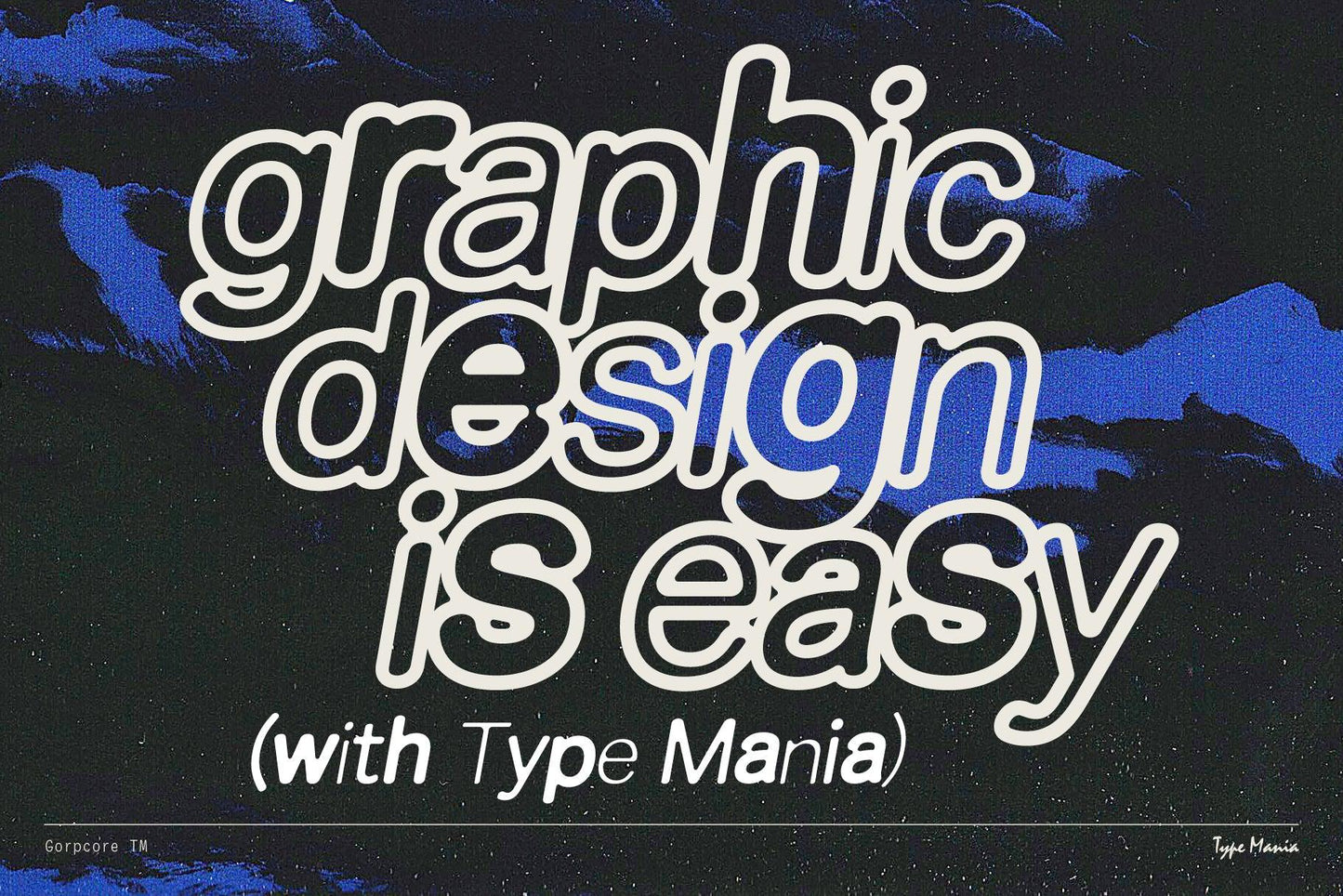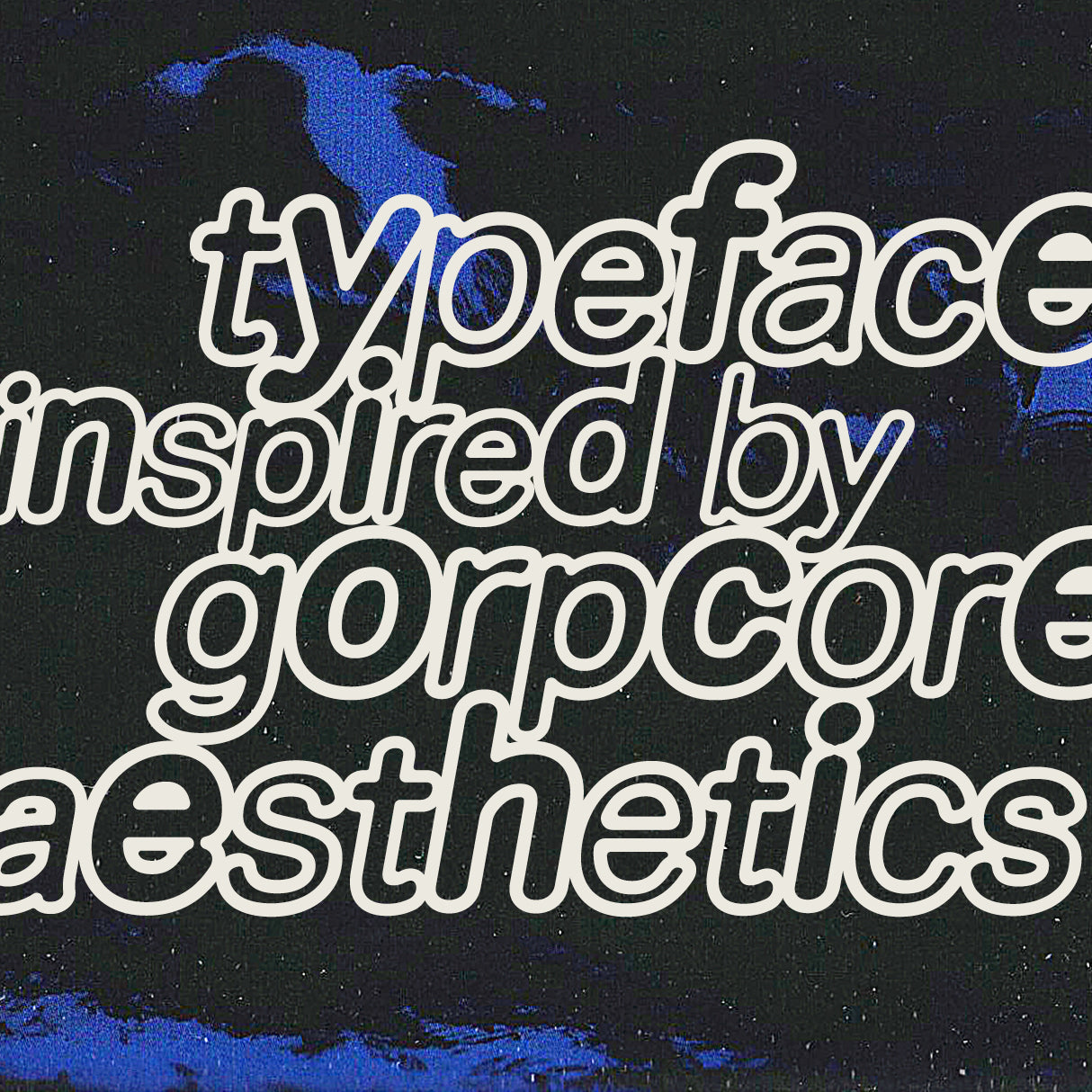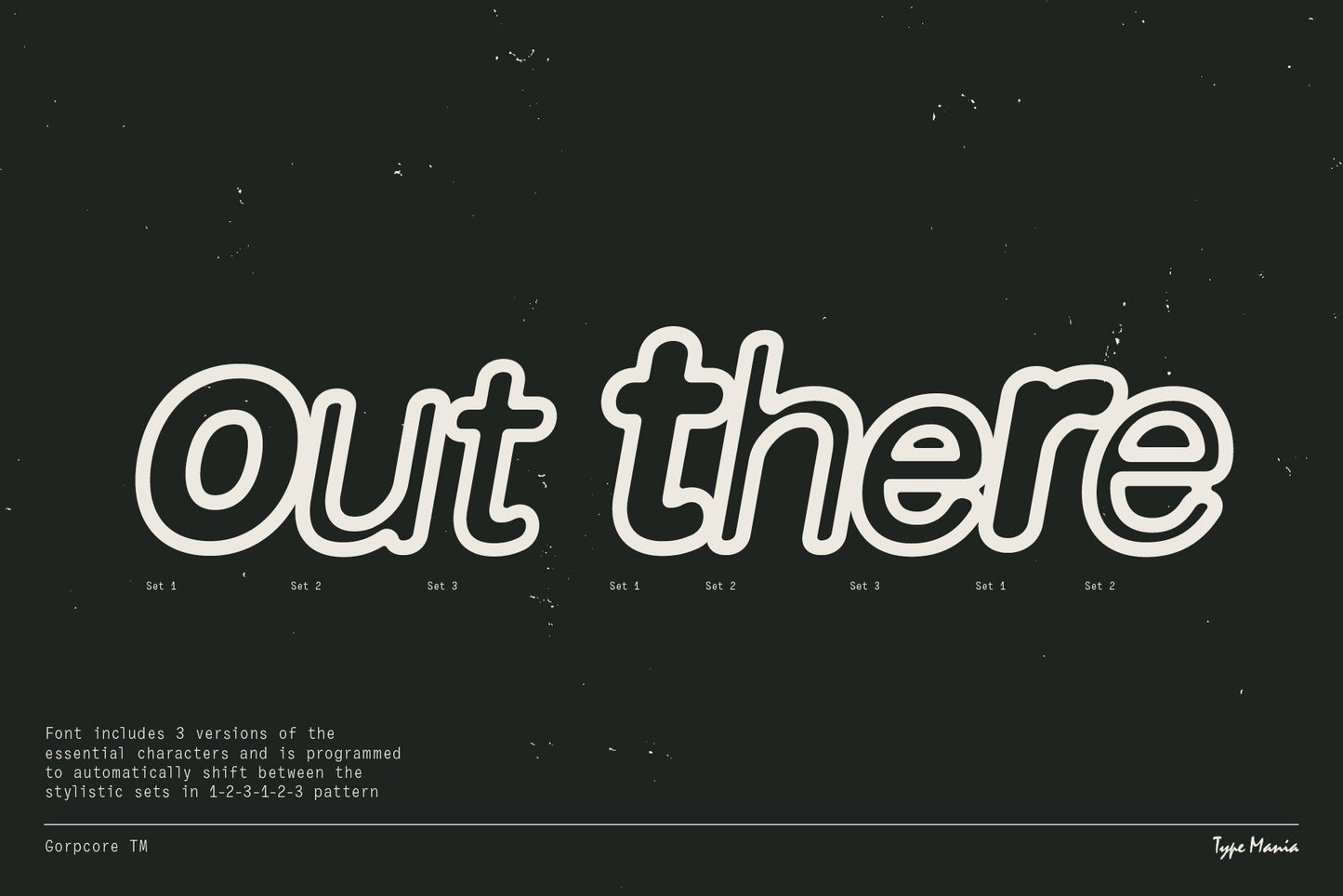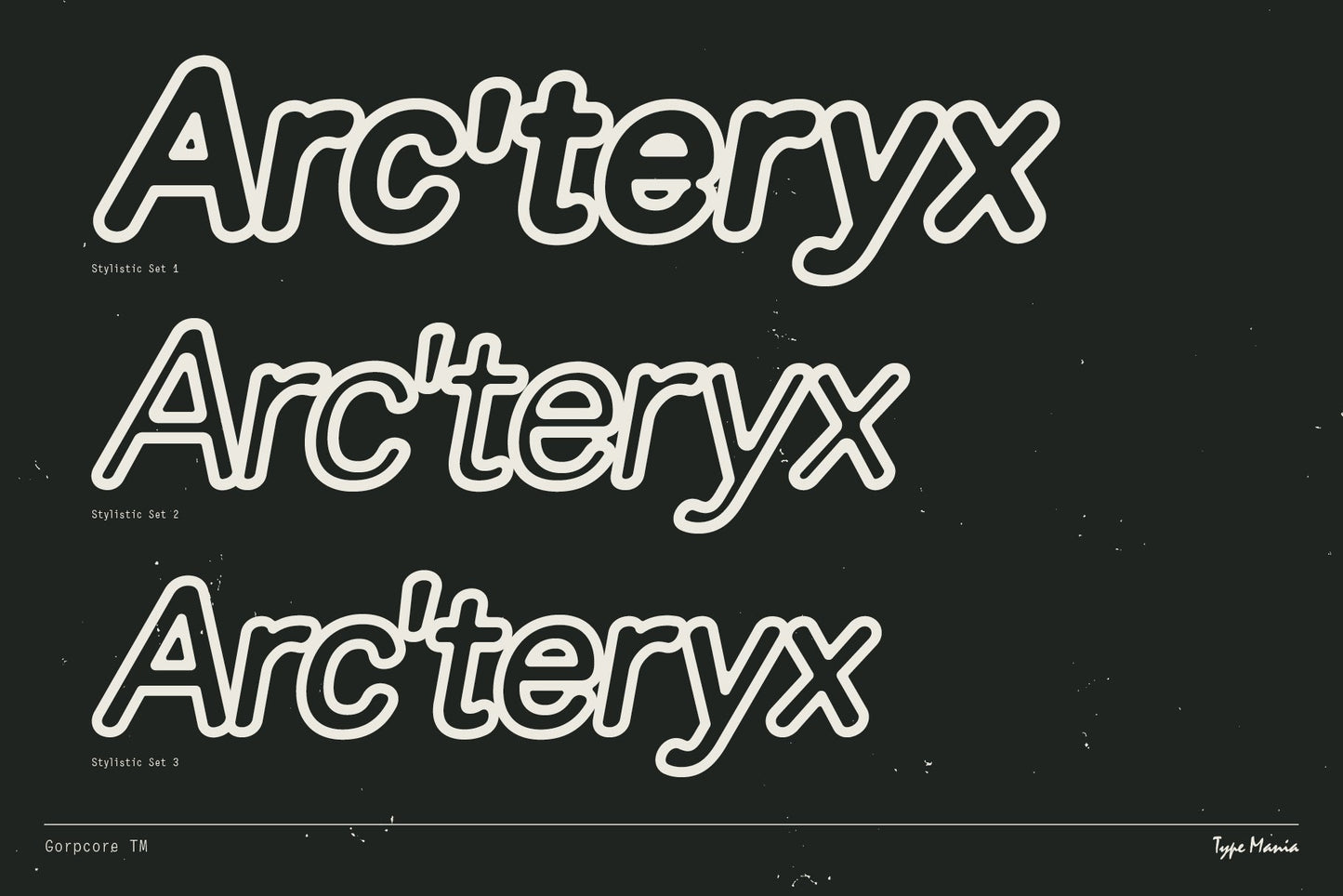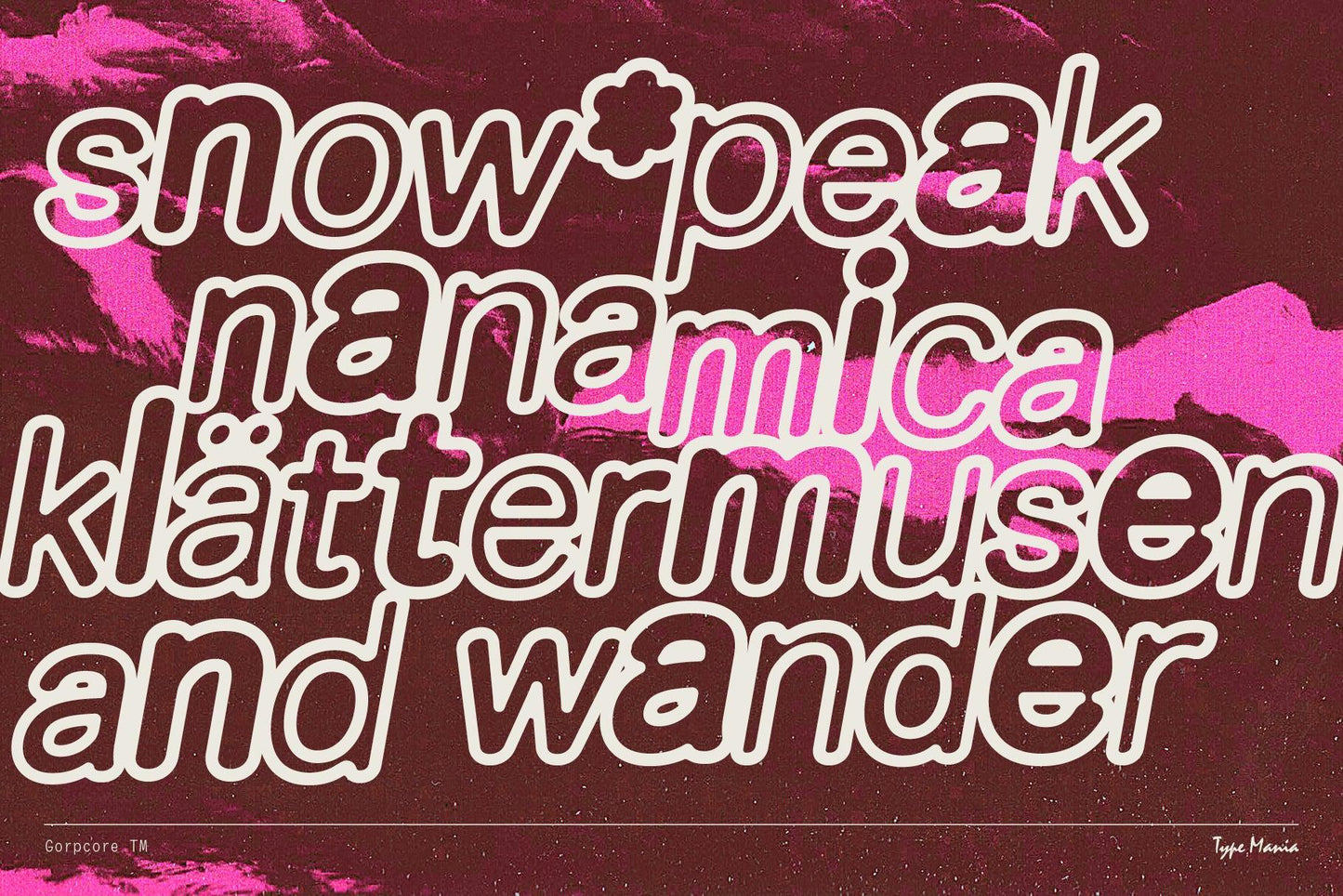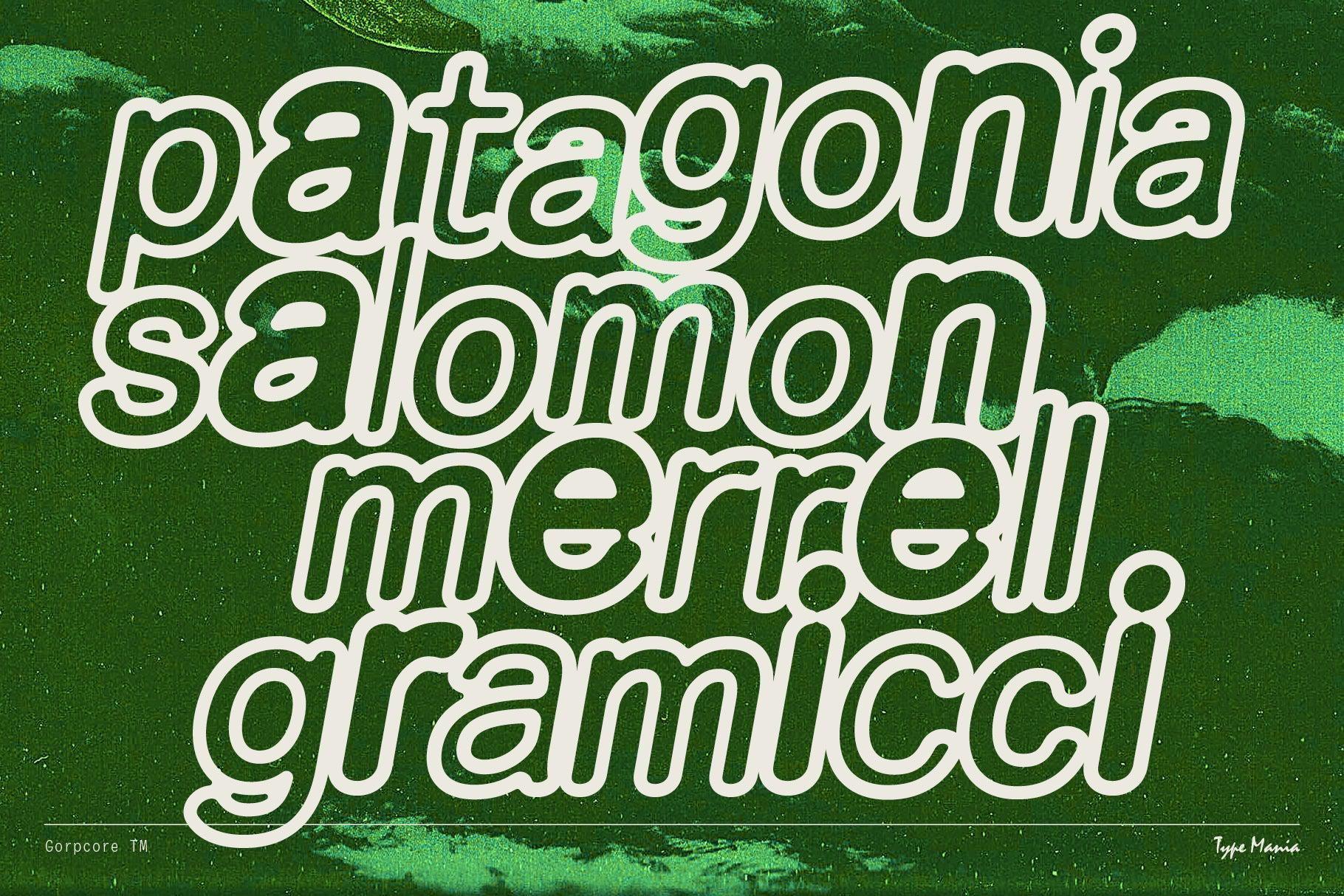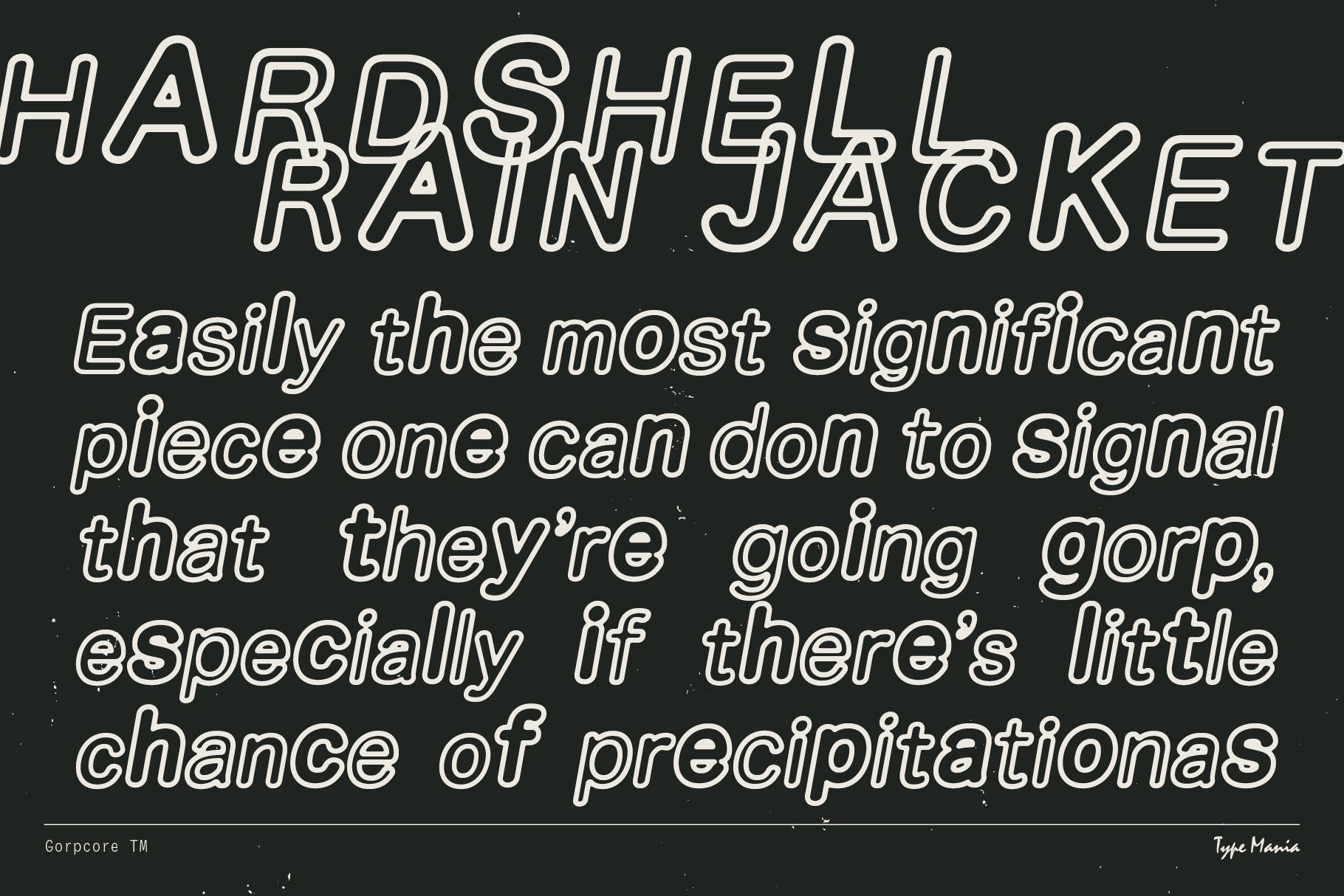
Gorpcore TM
Discover Gorpcore TM, the typeface that captures the rugged charm and functional elegance of gorpcore aesthetics. Good for flyers, posters, social media campaigns, branding – what have u. Whether you're scaling peaks or navigating city streets, let Gorpcore TM be the compass that guides your creative journey.
- 3 stylistic sets
- The font is programmed to automatically shift between the stylistic sets